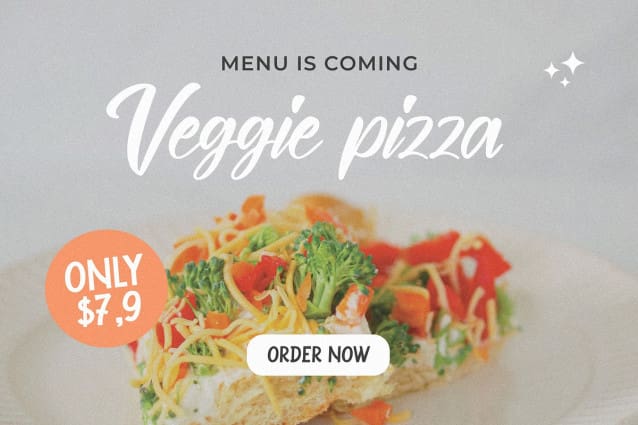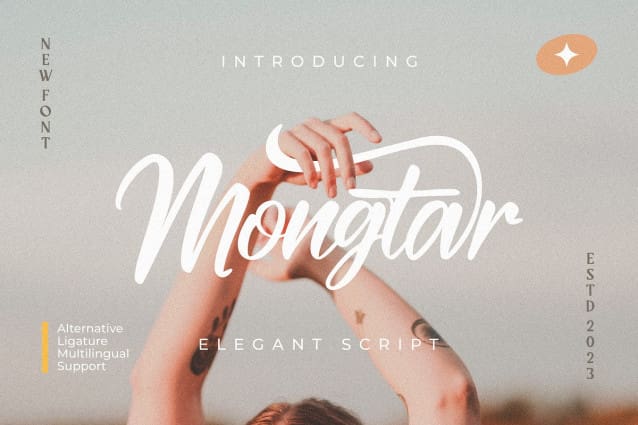
Mongtar Script Font
Mongtar Script Font, a stunning script font that seamlessly blends style and functionality. Whether you’re designing invitations, magazines, promotional materials, menus, or any other project,
Mongtar Script Font is your ultimate companion. Here’s what sets it apart:
Uppercase & Lowercase: Mongtar offers both uppercase and lowercase characters, providing you with the flexibility to craft beautiful and personalized text.
Punctuation: Our font includes a wide range of punctuation marks, adding sophistication to your designs and ensuring every detail is just right.
Multilingual: Mongtar supports multiple languages, making it accessible and user-friendly for a global audience.
Stylish Script: Mongtar’s graceful script style lends an air of elegance to your projects, making them visually captivating.
Versatile Usage: From formal invitations to trendy magazine layouts and mouthwatering food menus, Mongtar adapts to all your design needs with finesse.
Unleash your creativity and let Mongtar transform your designs into timeless masterpieces. Get ready to make a statement and captivate your audience worldwide!